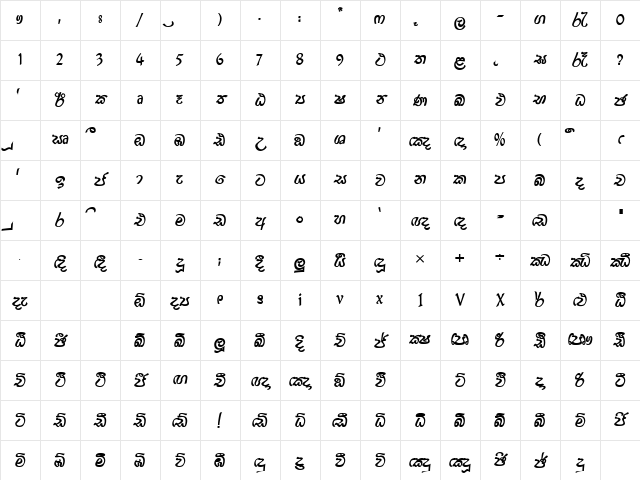
A13Yasarath Regular
A13Yasarath Family
Design Context for A13Yasarath
A13Yasarath is a composed and adaptable typeface that performs quietly and consistently across a wide range of design contexts.